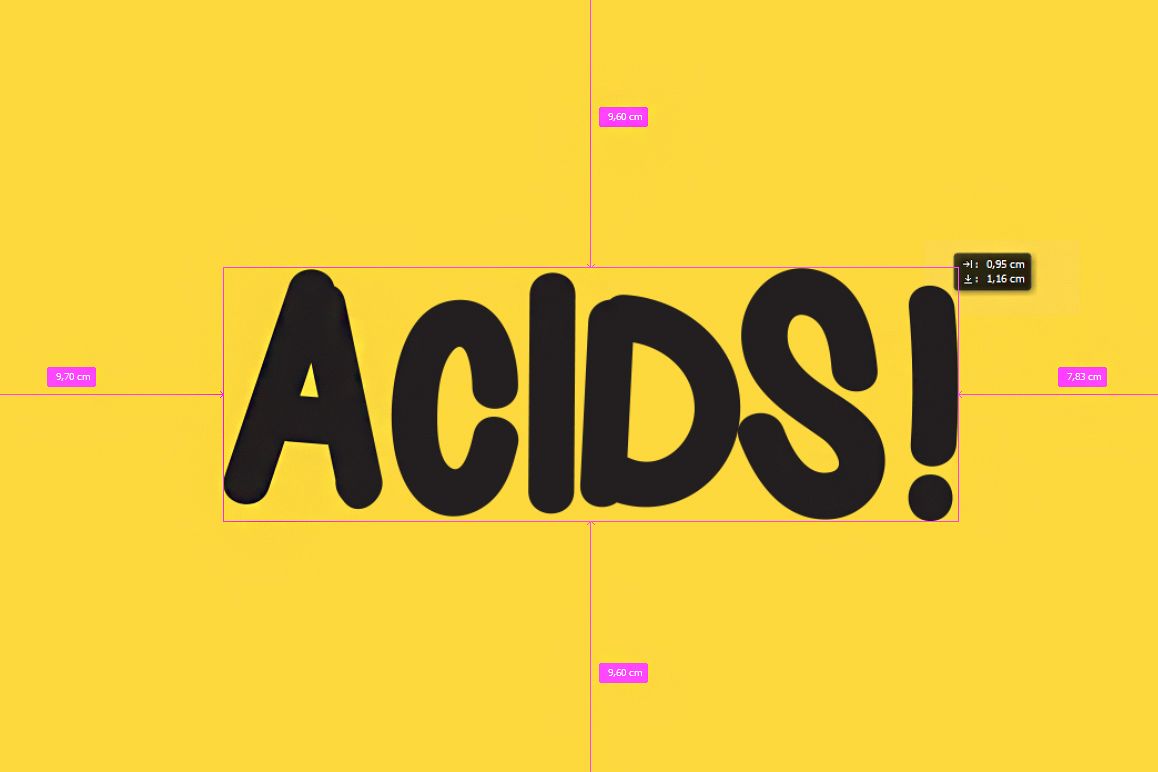
Acids!
Acids! Typeface
Characteristic of this fonts will act to create an ambience of fun.
The font can be used for many purposes but looks great when put on
signs, shirts or cards. Also, it works perfect on fresh summer theme
designs.